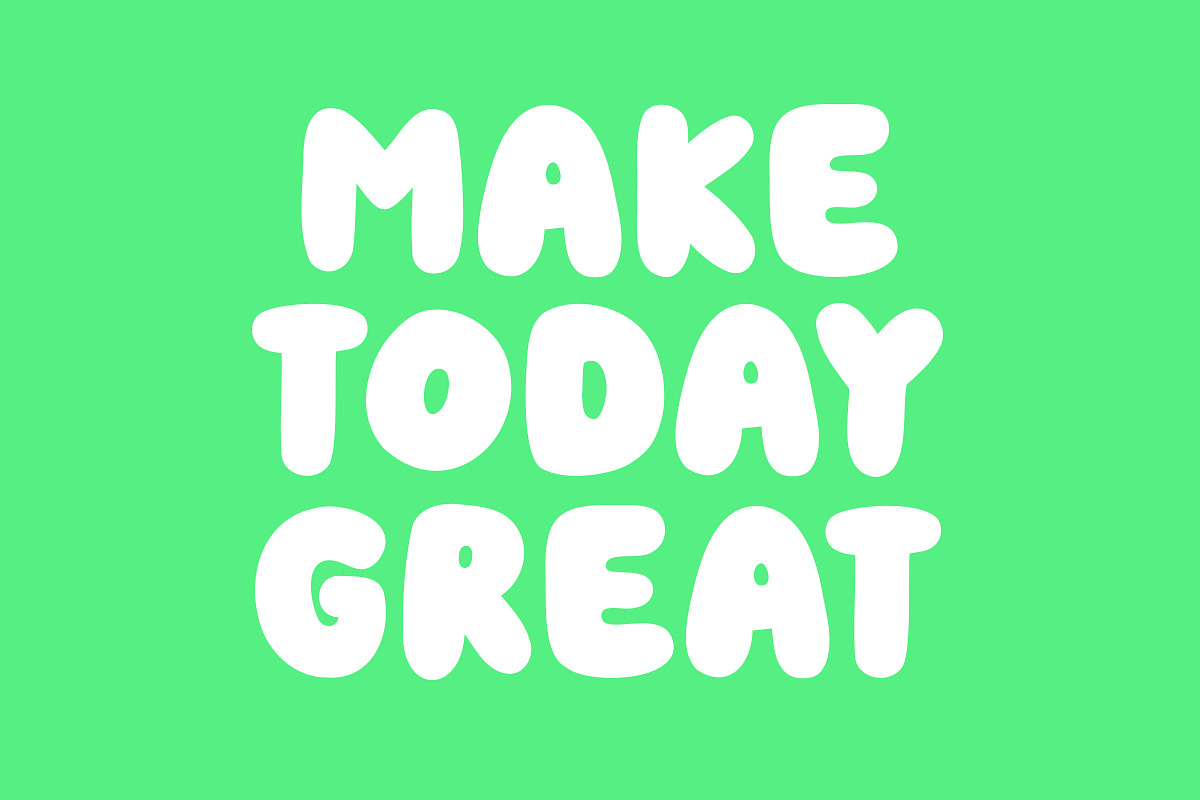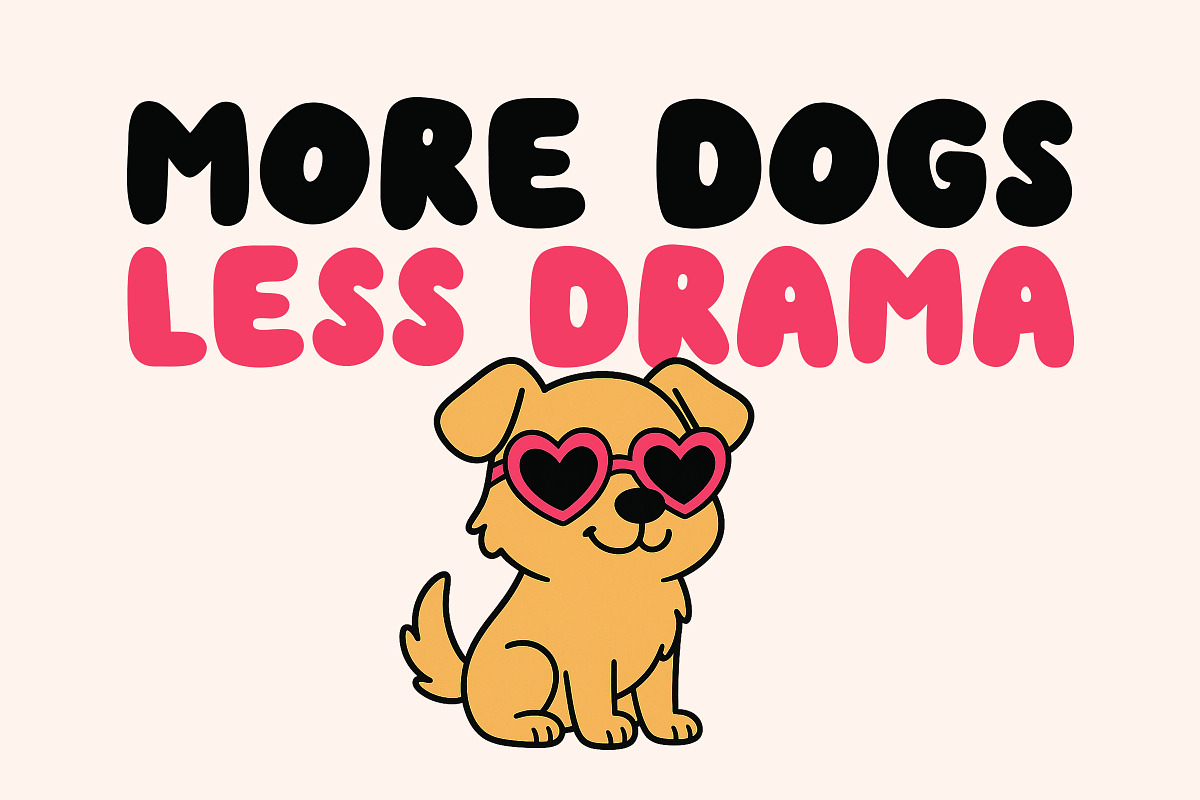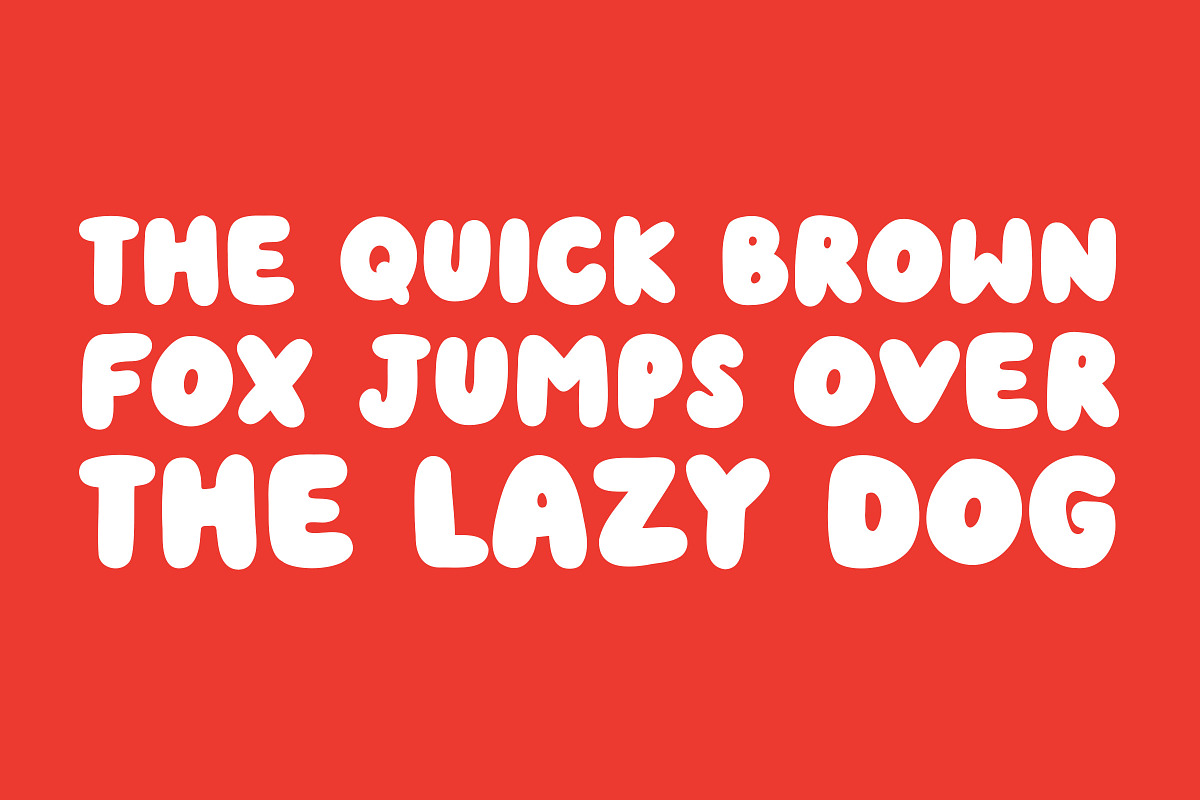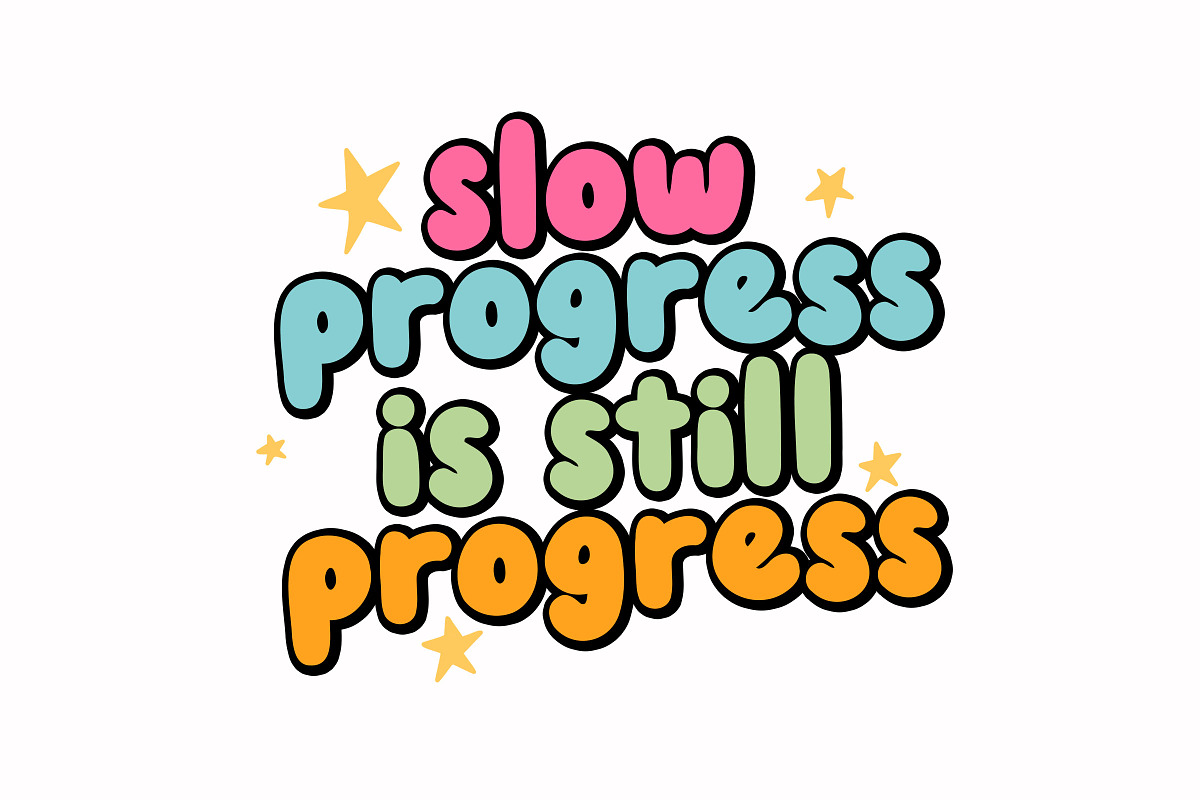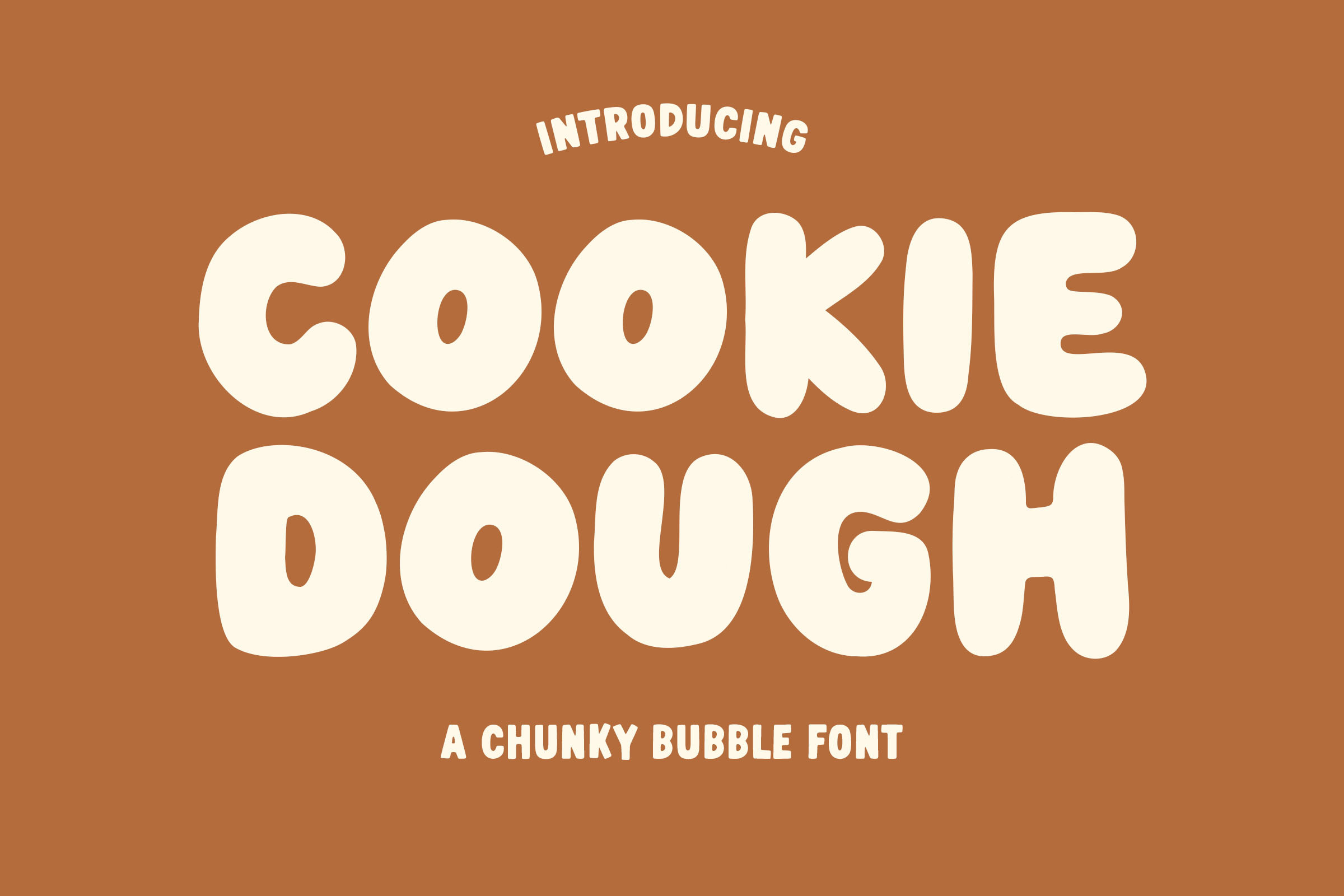
Cookie Dough - A Chunky Bubble Font
Cookie Dough is a round bubble typeface perfect for any fun quirky design work! This font can be used for anything such as T-Shirt designs, phone cases, greeting cards, invitations, mugs and so much more! Get creative!